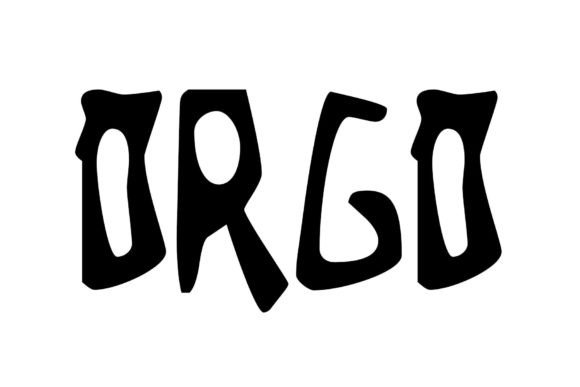
Get ready to be captivated by Orgo Font, a display font that will make your designs pop! This unique and eccentric font is anything but ordinary, with its quirky and captivating character that adds a layer of intrigue and charm to your creations. Dive into the world of numbers tattoo with Orgo Font, where your designs will take center stage.
With Orgo Font, you'll never have a dull moment in your design journey. Its versatility shines through in a multitude of contexts, from eye-catching logos and branding to playful social media posts and trendy t-shirt designs. Let your imagination run wild and explore the endless possibilities that await you with this captivating font.
Orgo Font is a font that speaks to the heart, evoking emotions and capturing attention wherever it goes. Its distinctive charm and undeniable presence will leave a lasting impression on your audience, making your designs truly unforgettable. Embrace the magic of Orgo Font and unleash your creativity like never before.
Crafted by the talented denestudios, Orgo Font is a masterpiece of digital artistry. Its meticulous attention to detail and unwavering commitment to quality make it a font that stands the test of time. Elevate your designs and leave a lasting impression with Orgo Font, your key to unlocking a world of endless creative possibilities.